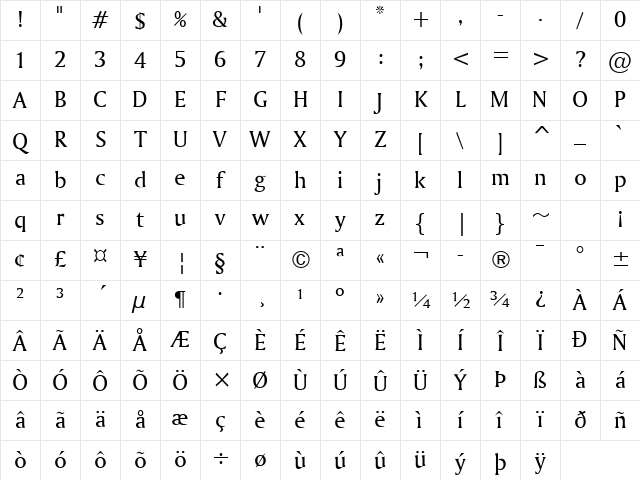
Ameretto Normal
Ameretto Family
Complete Ameretto Normal glyph index. Displaying only characters natively supported by Ameretto Normal font.
Design Context for Ameretto
Ameretto is a composed and adaptable typeface that performs quietly and consistently across a wide range of design contexts.